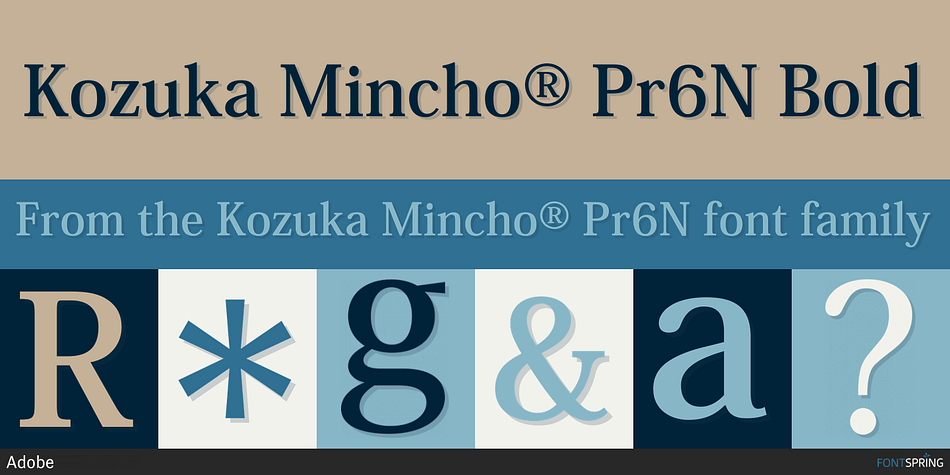
Kozuka Mincho® Pr6N Bold
Kozuka Mincho® Pr6N is a serif font family. This typeface has six styles and was published by Adobe.
The Kozuka Mincho typeface family, composed of six different weights to cover various uses ranging from body text composition to headlines, have now been completed as OpenType fonts.
Not simply based on the tradition of the Mincho style, Kozuka Mincho family has a clear and original touch reflecting our current era.
Adobe Originals Latin typefaces are widely used by creative professionals in the fields of publishing, graphic design, and typography. In the development of the Kozuka Mincho typeface family, our goal was to create an original typeface with the high-quality and functionality that is associated with Adobe Originals.
Kozuka Mincho is a Mincho style typeface family that can be used for a wide range of purposes. The EL (Extra Light) weight is effective for small type sizes such as captions and so on. The three weights L (Light), R (Regular), and M (Medium) cover a wide scope of uses from general text typesetting to advertisement copy. Strong and clear expressions are possible with the B (Bold) and H (Heavy) weights. Each weight is carefully designed to achieve excellent typographic quality and printability. Design consistency of glyph shapes according to the standard glyph set is an important element of printing type. We have developed a new systematic typeface design process, and built our own type designing environment so that we can produce Japanese typefaces with consistent and well-balanced glyph shapes.
Still, it is impossible to complete a Japanese typeface without expertise in the art of Japanese traditional typeface design. Masahiko Kozuka, Advisor, who has been involved with many text typeface design projects, supervised, and lead the typeface design project of Kozuka Gothic, and Adobe’s Japanese type design team produced the typeface. New and creative features of Kozuka Mincho are based on the tradition of Japanese typeface design.